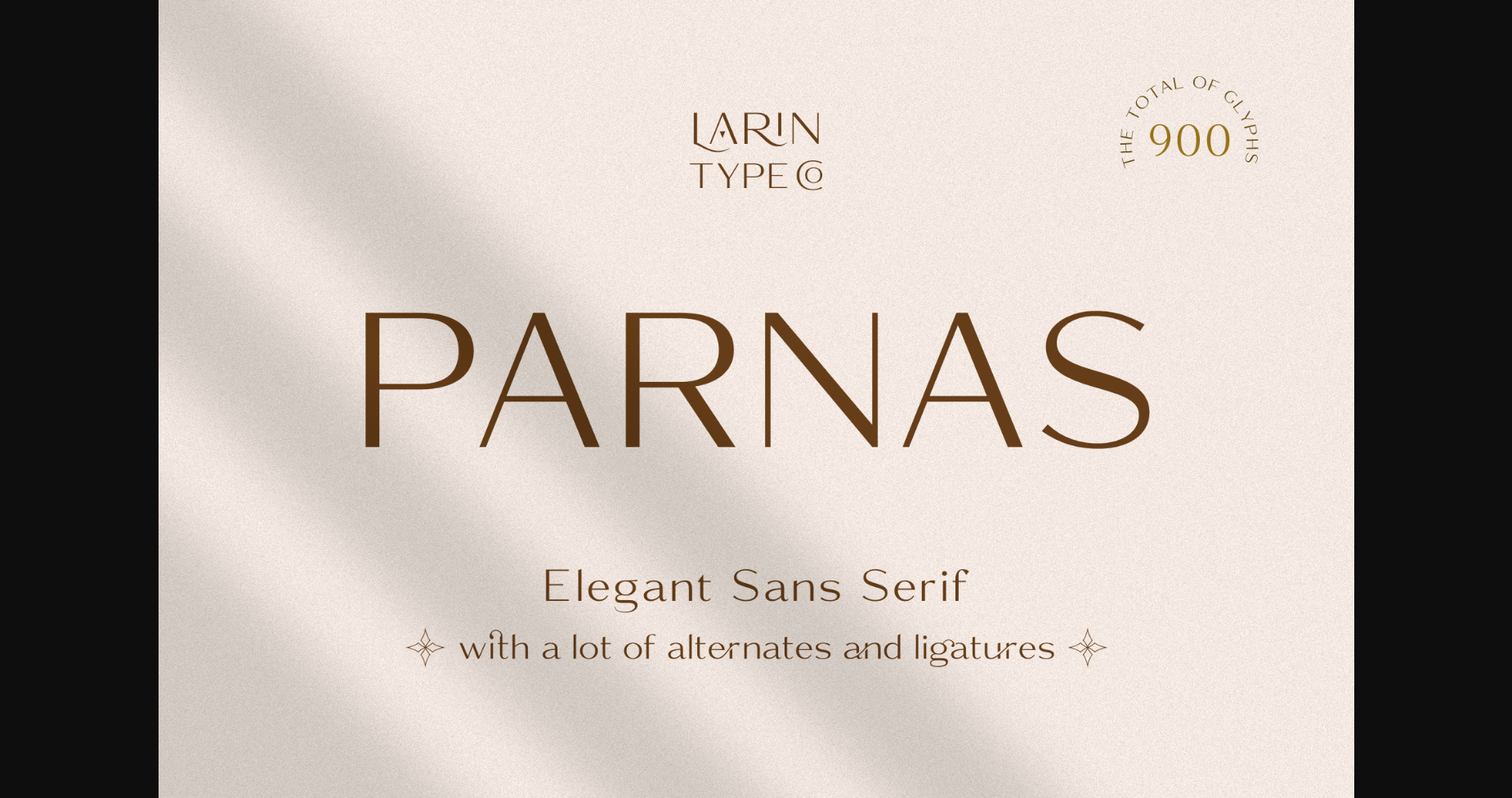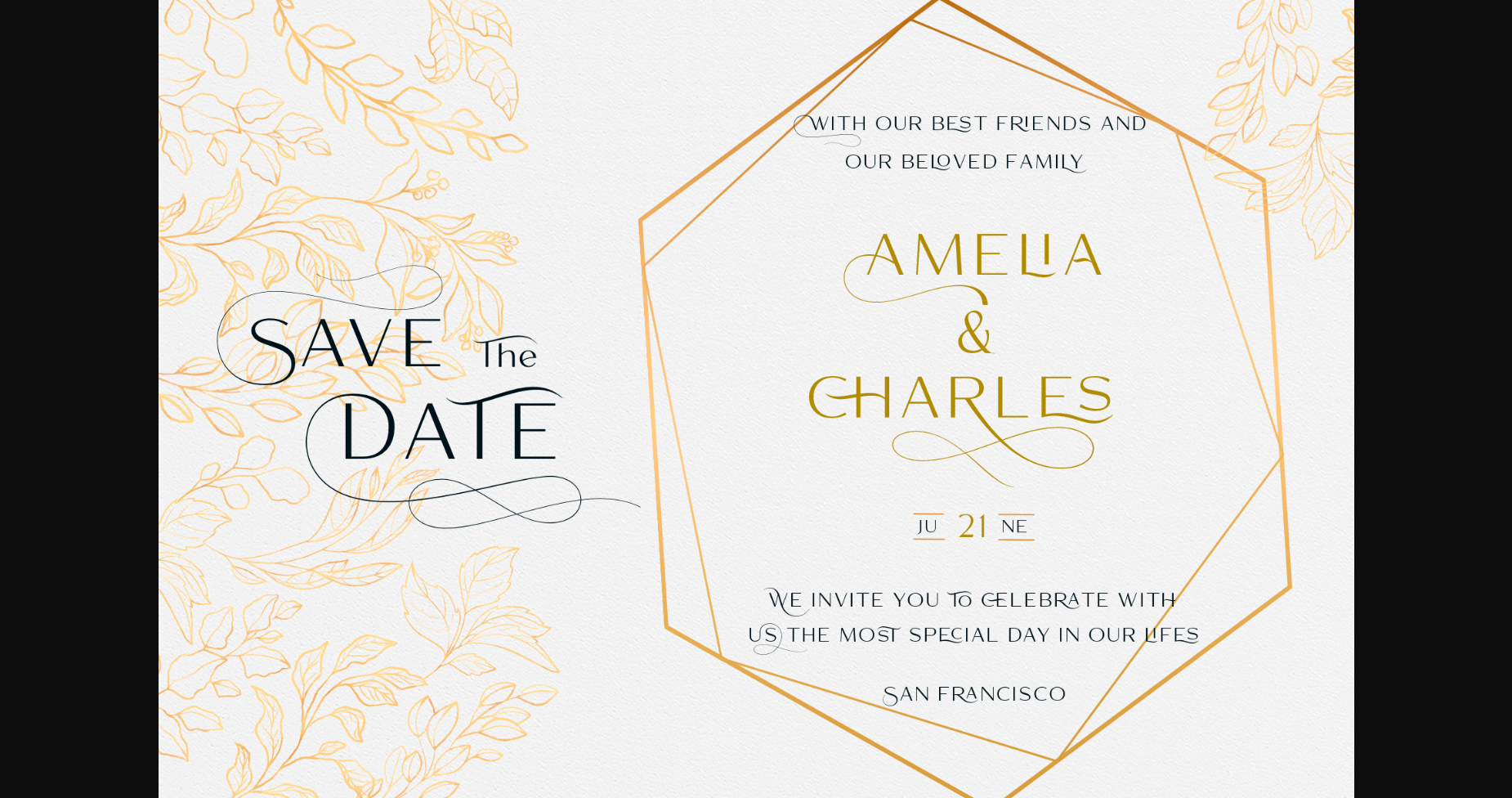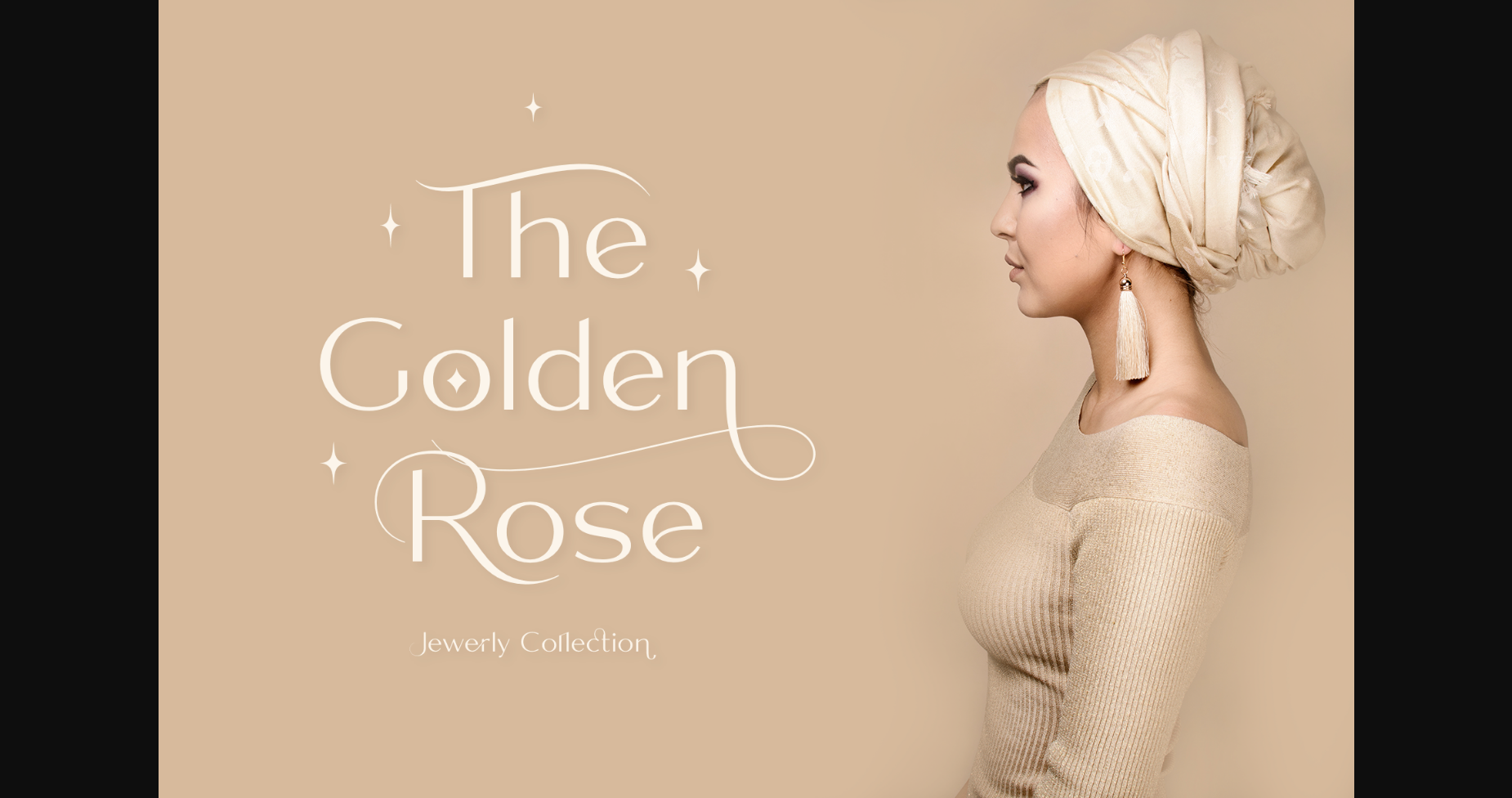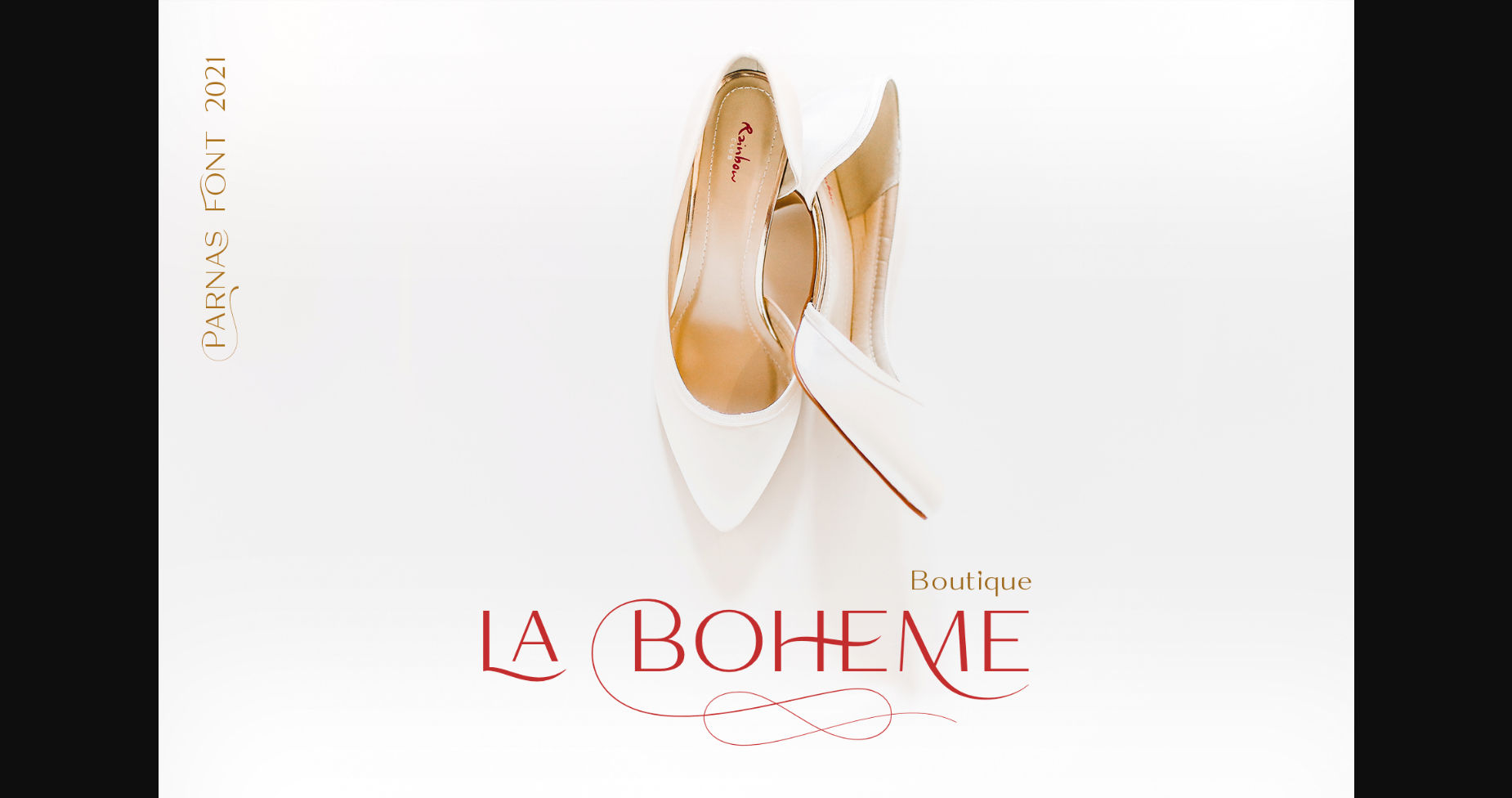
About Parnas Sans Font
Parnas Sans is a classic and elegant sans serif font. This versatile font has a wide range of applications ranging from greeting cards to kids’ crafts, and is guaranteed to add a sweet touch to your next design.